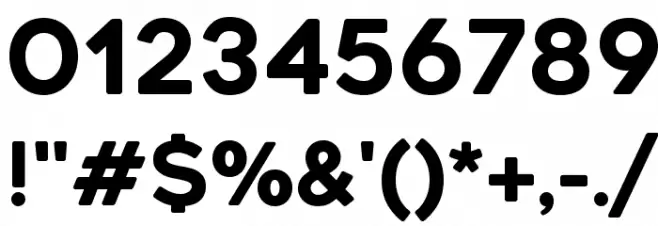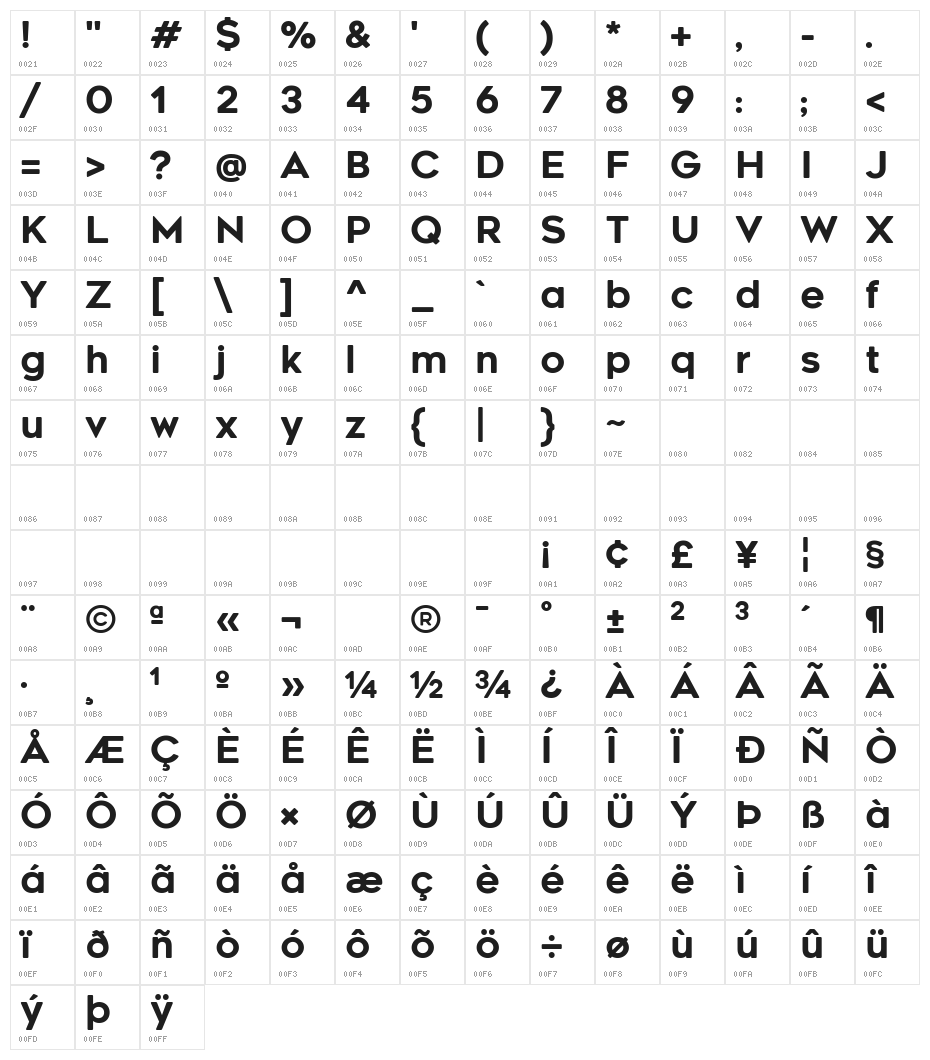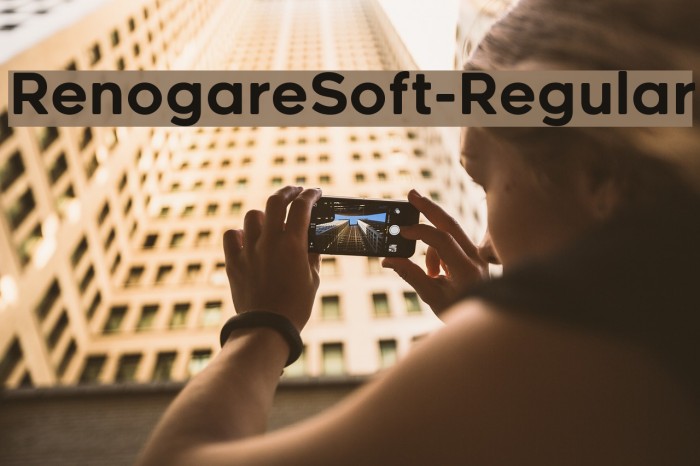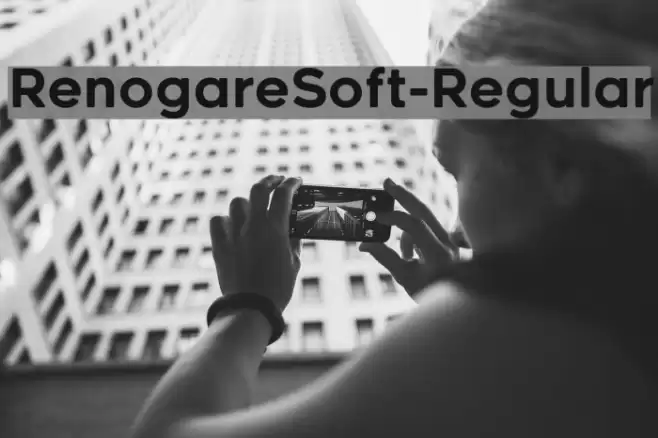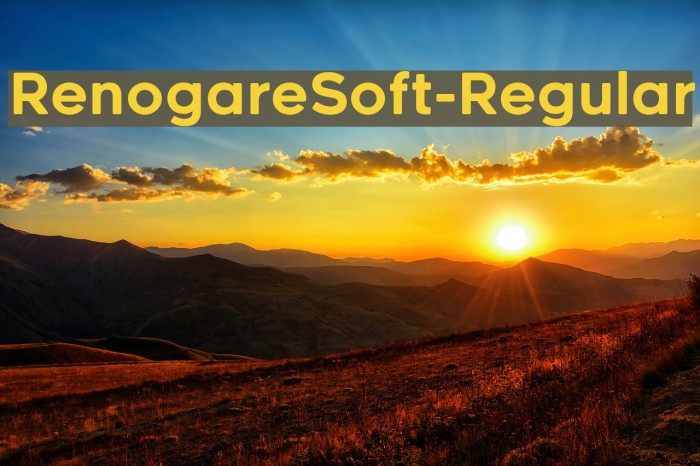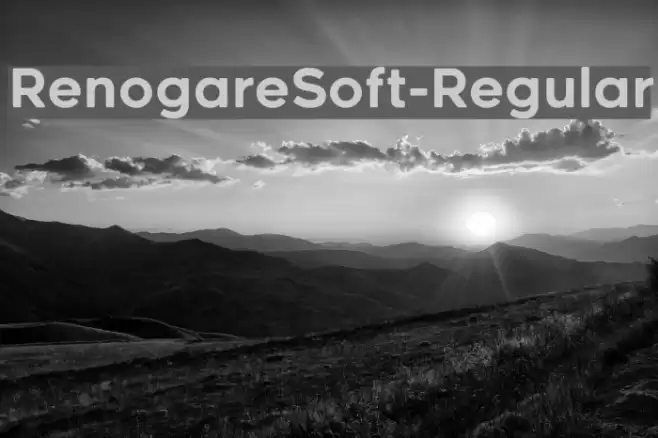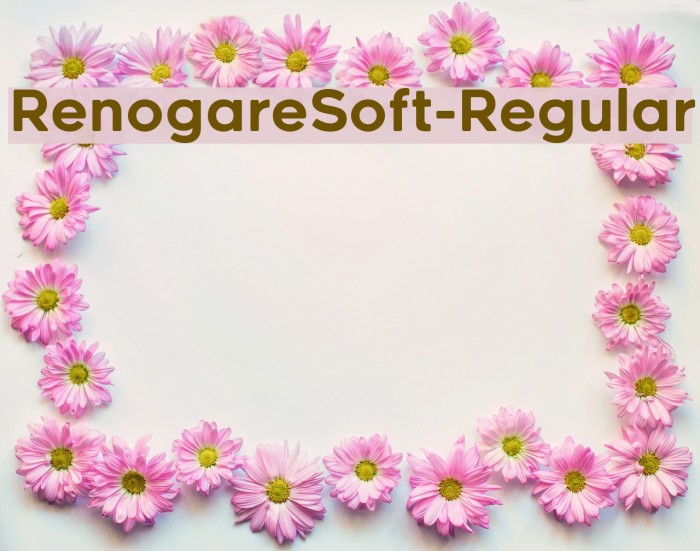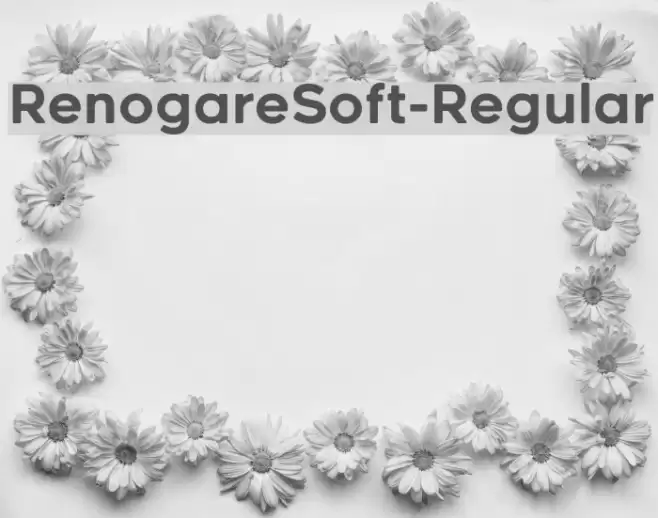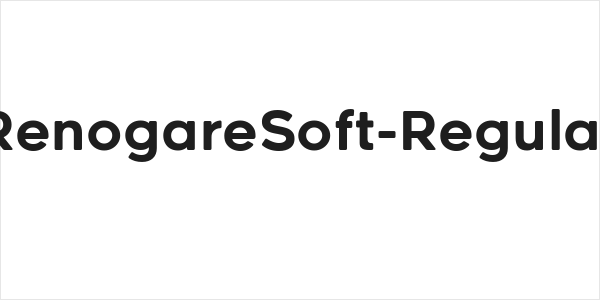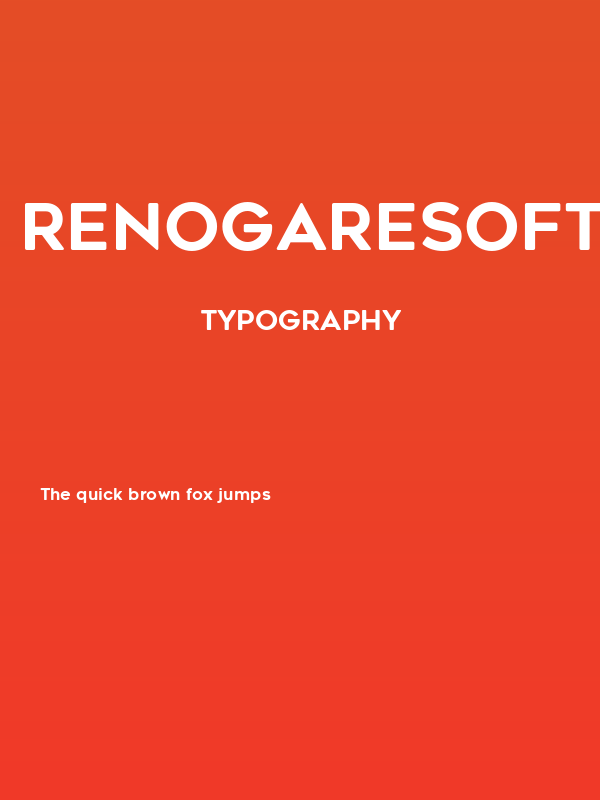
RenogareSoft-Regular Font
RenogareSoft-Regular Description
This font features a clean and modern sans-serif design with smooth, rounded edges that convey a friendly and approachable feel. The characters are evenly spaced, providing excellent readability across both uppercase and lowercase letters. The numerals and special characters maintain the same consistent style, ensuring uniformity throughout. Its simplicity and clarity make it suitable for a wide range of applications, from digital interfaces to print media. The font's balanced proportions and lack of serifs give it a contemporary look, ideal for projects that require a fresh and modern aesthetic.
| Proposed Projects | Ideal for web design, mobile apps, branding, advertising, and editorial design. |